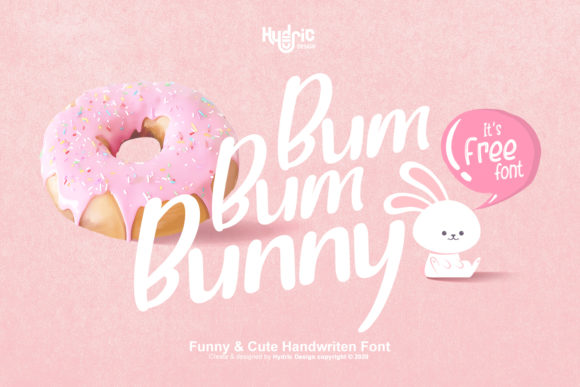
Introducing the Sensational Bum Bum Bunny Font: Where Fun Meets Elegance!
In a world saturated with mundane fonts, Bum Bum Bunny emerges as a breath of fresh air, a delightful script font that dances with whimsy and charm. Its enchanting curves and playful strokes invite you to unleash your creativity, transforming mundane words into captivating works of art.
Designed by the talented Hydric Design, Bum Bum Bunny is more than just a font; it's an expression of individuality, a reflection of your unique style. Whether you're crafting eye-catching social media posts, designing personalized invitations, or adding a touch of whimsy to your DIY projects, this font is your perfect companion.
Immerse yourself in the world of Bum Bum Bunny and discover a font that's as versatile as it is beautiful. From heartfelt messages to humorous anecdotes, this font effortlessly captures the essence of your emotions, adding a touch of delight to every letter, every word, every sentence.
Picture this: Your Instagram feed adorned with captivating quotes, each letter dancing in perfect harmony, drawing the eyes of your followers like moths to a flame. Or envision your handmade cards, infused with a personal touch, evoking heartfelt sentiments that resonate with your loved ones. With Bum Bum Bunny, your creative vision knows no bounds.